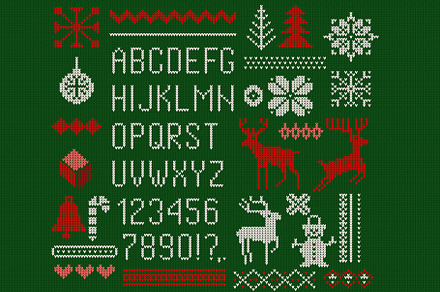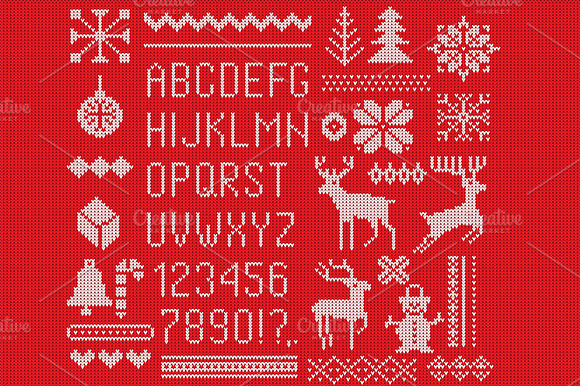
Knitted font, elements and borders.
Set of knitted font, elements and borders for Christmas, New Year or winter design. Ugly sweater style. Sweater ornaments for scandinavian pattern.
Vector illustration. Isolated on red background.